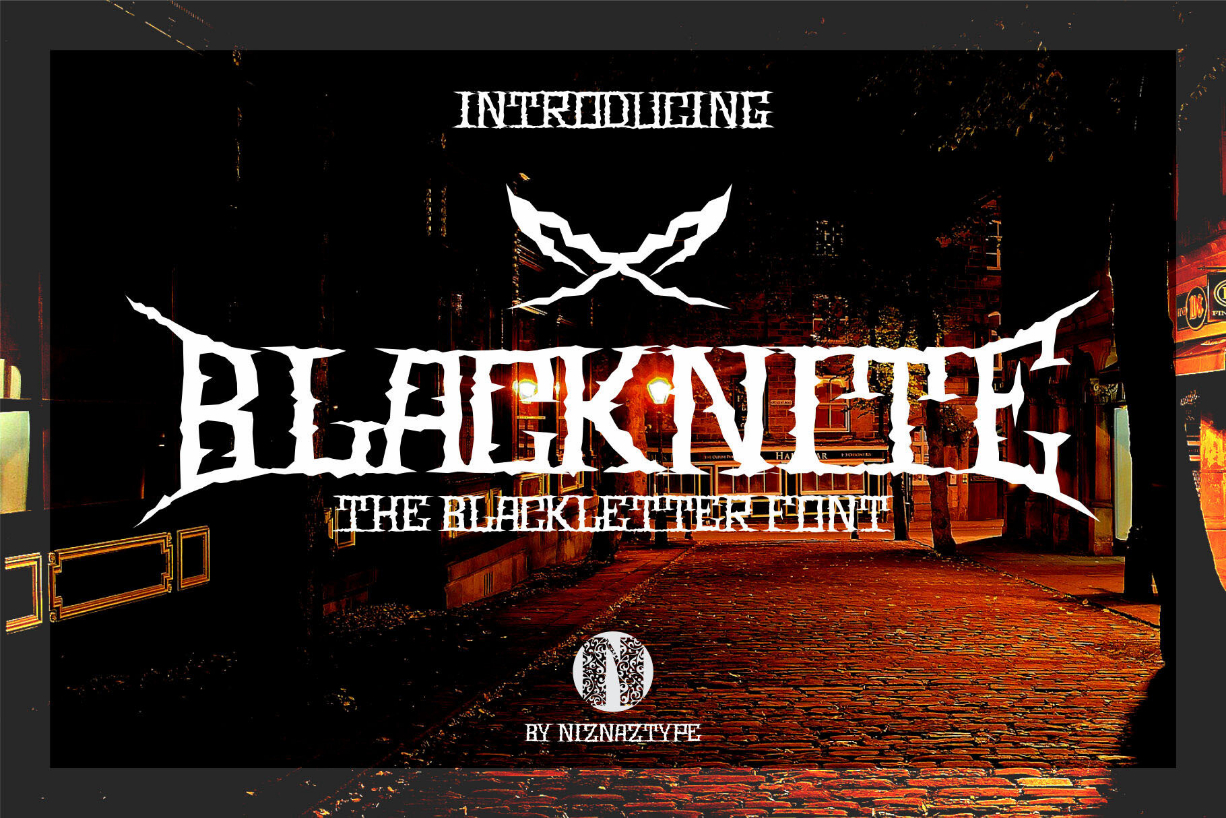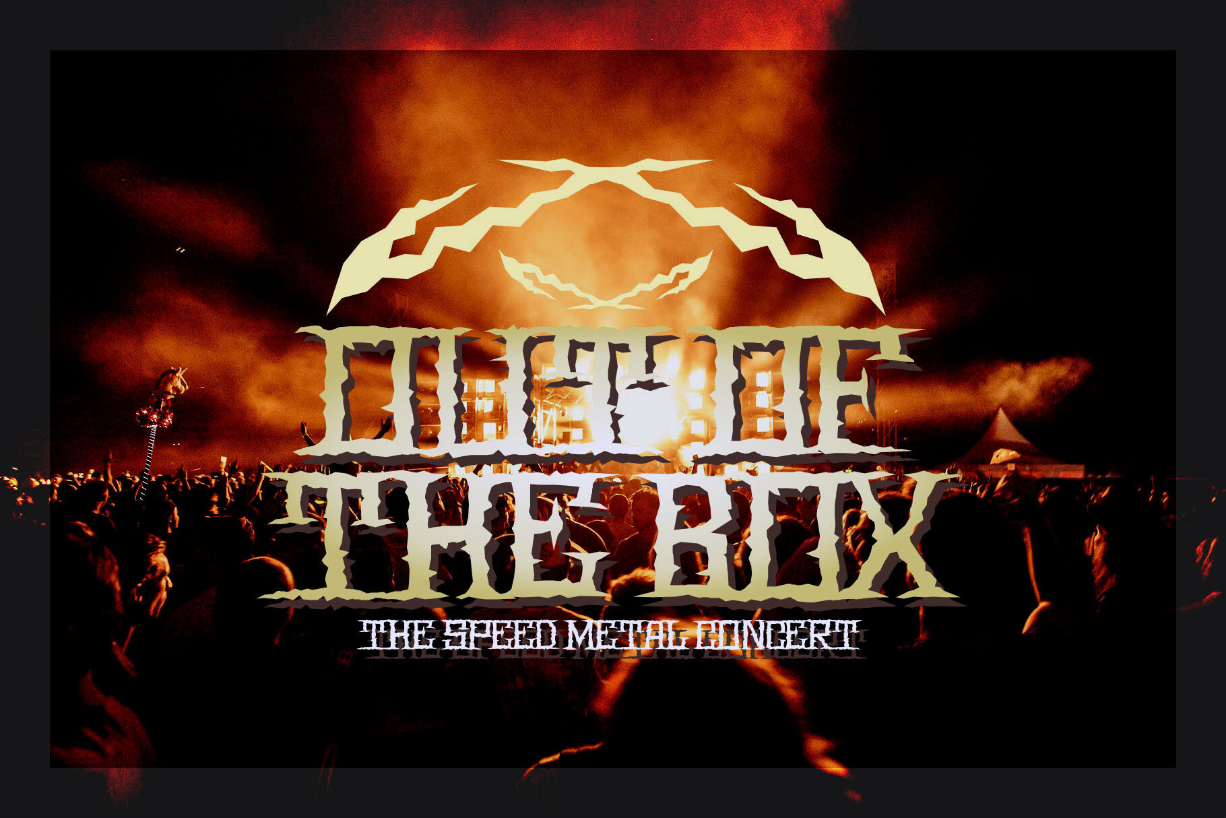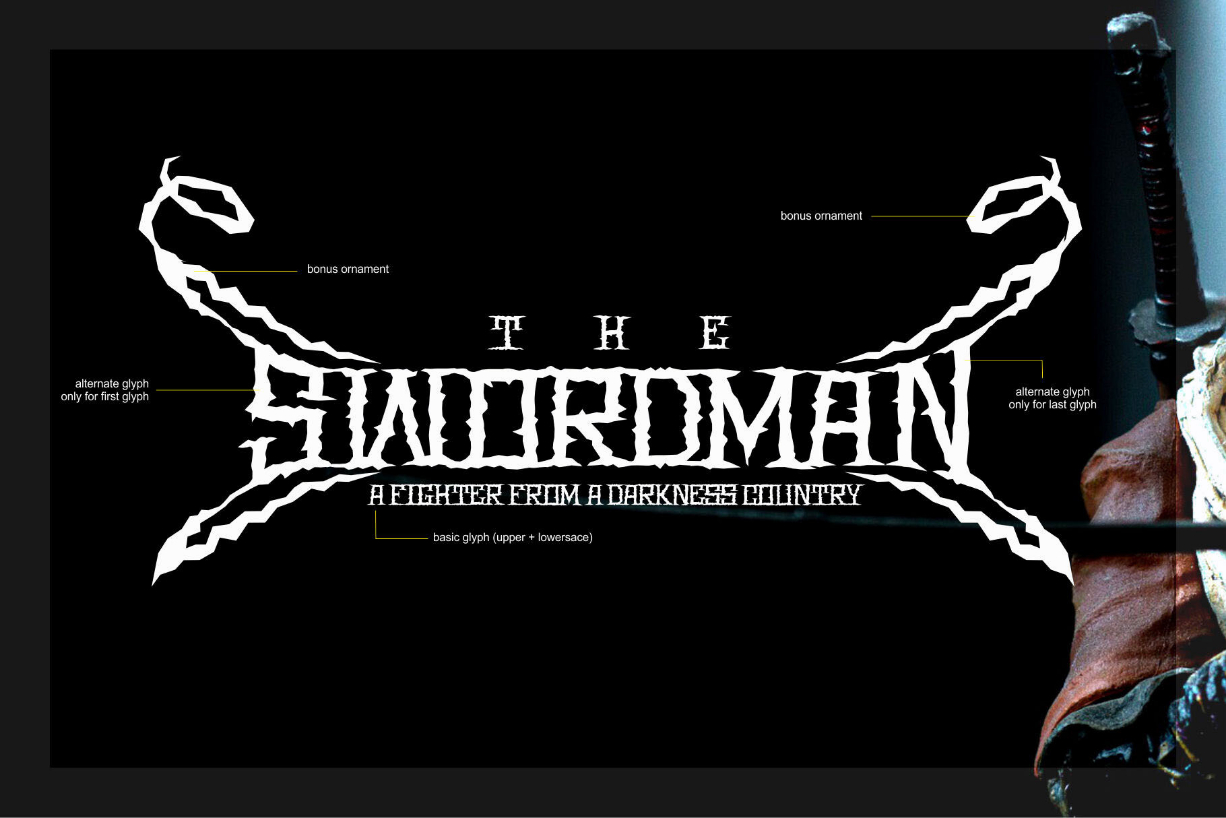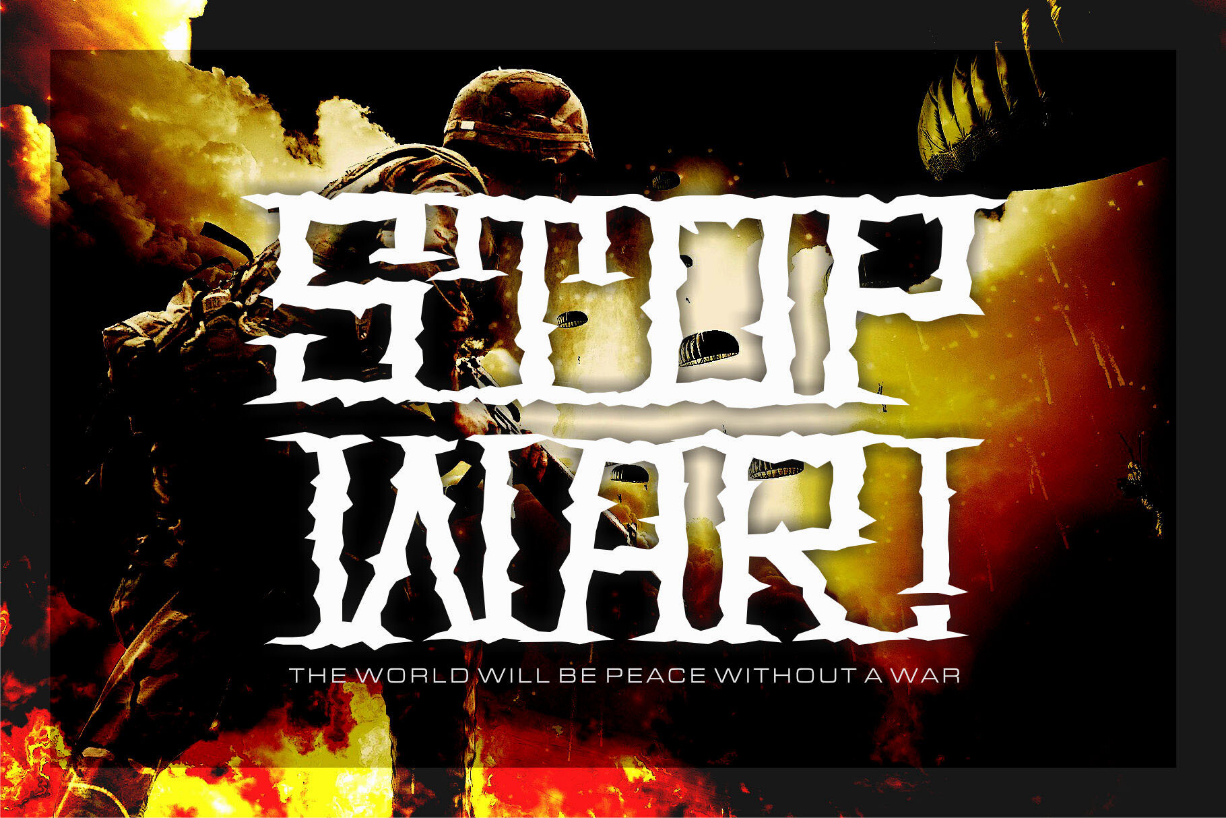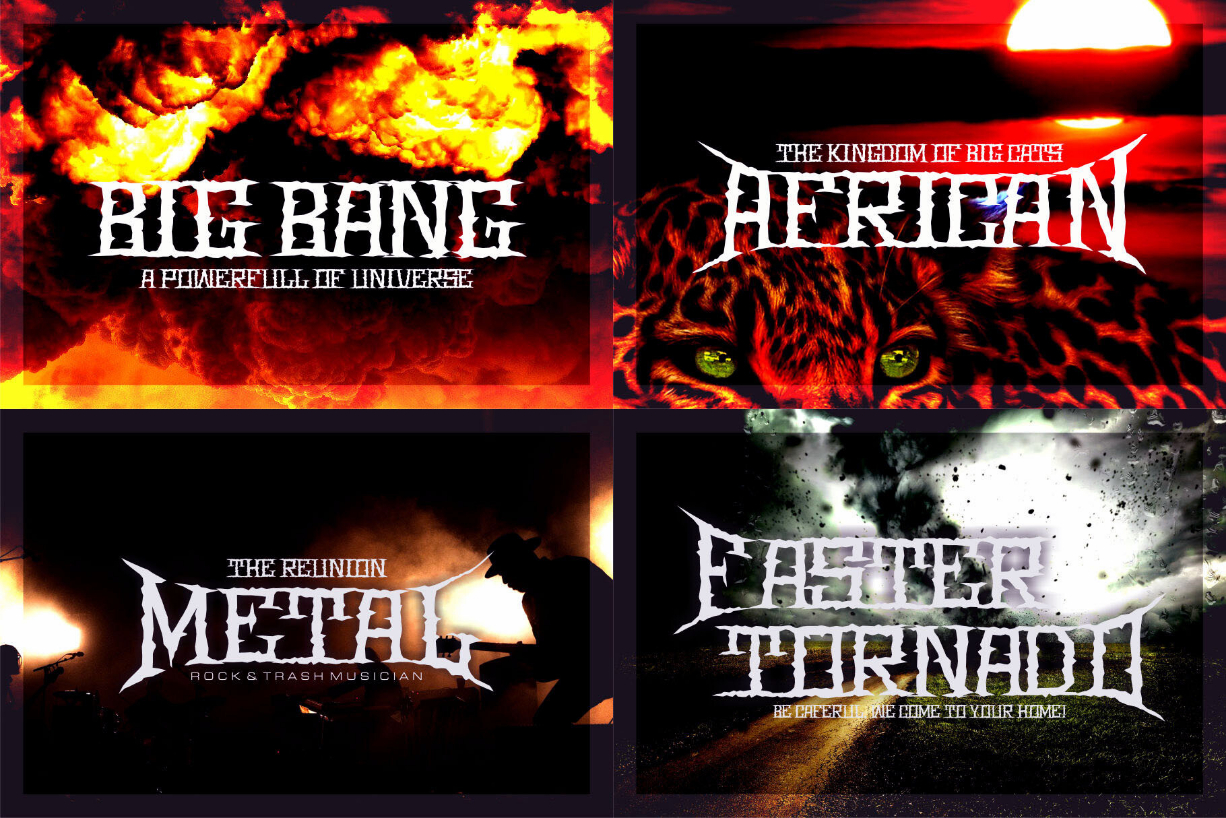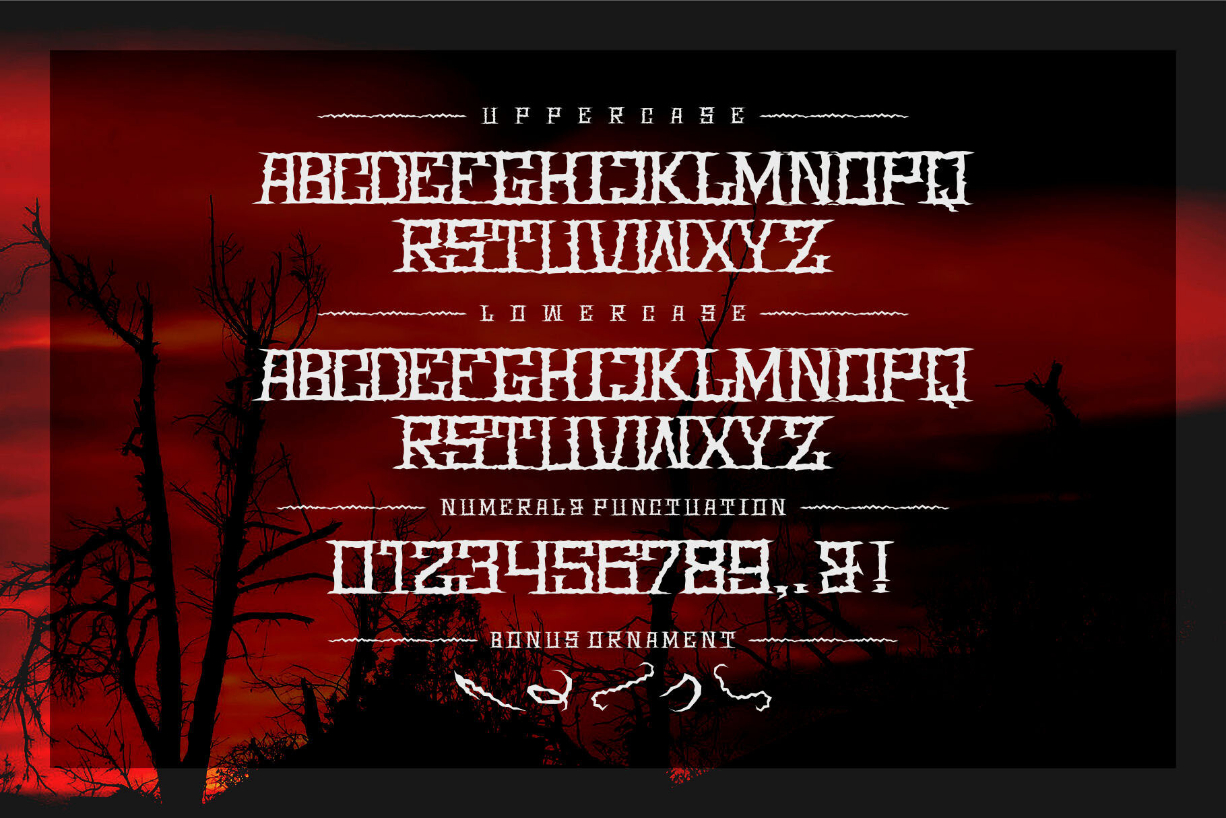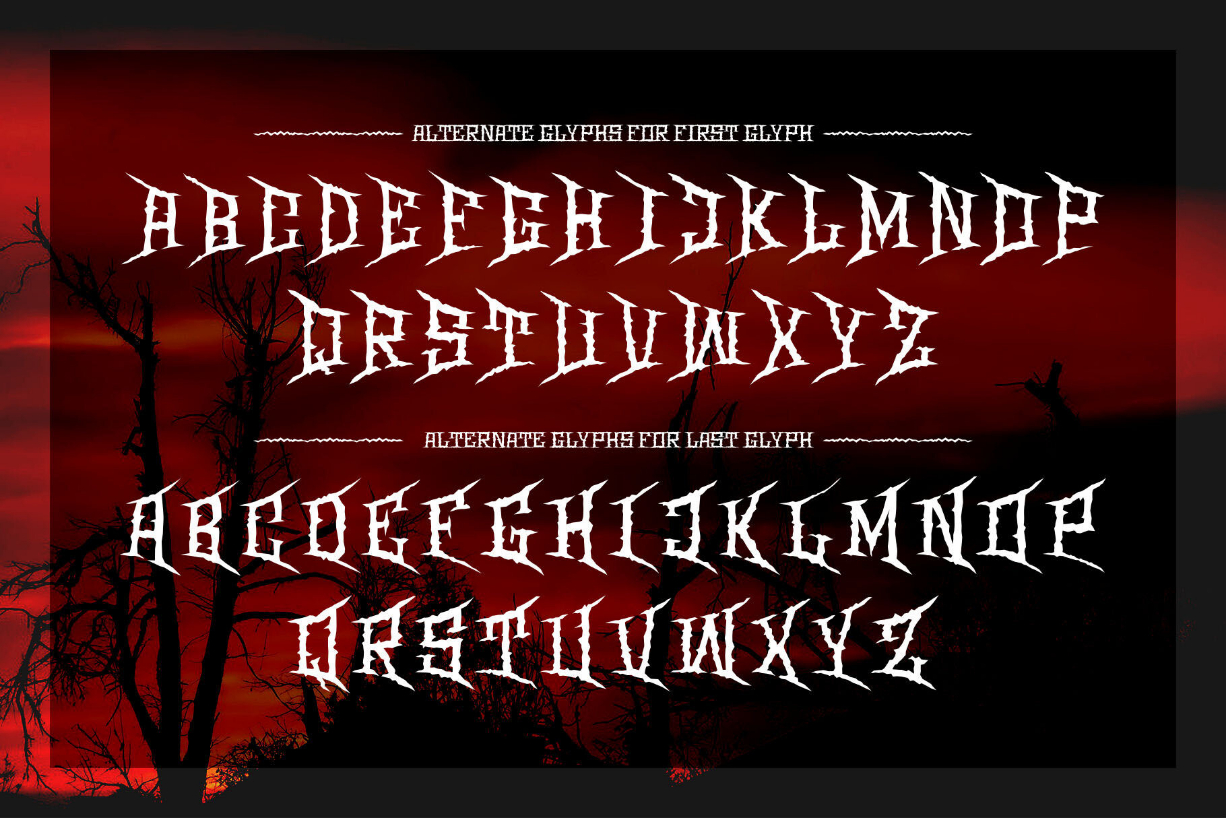
Blacknite Font
About Blacknite Font
Blacknite is a modern blackletter font that was created to be used for the darkness, gothic, metal, horror or creepy, underground, rock, and music themes. Such as design for posters, headlines, wall paintings, shops, t-shirts, titles of events, covers of products, murals, and others.
Bonus set of ornament to support your styles of design.